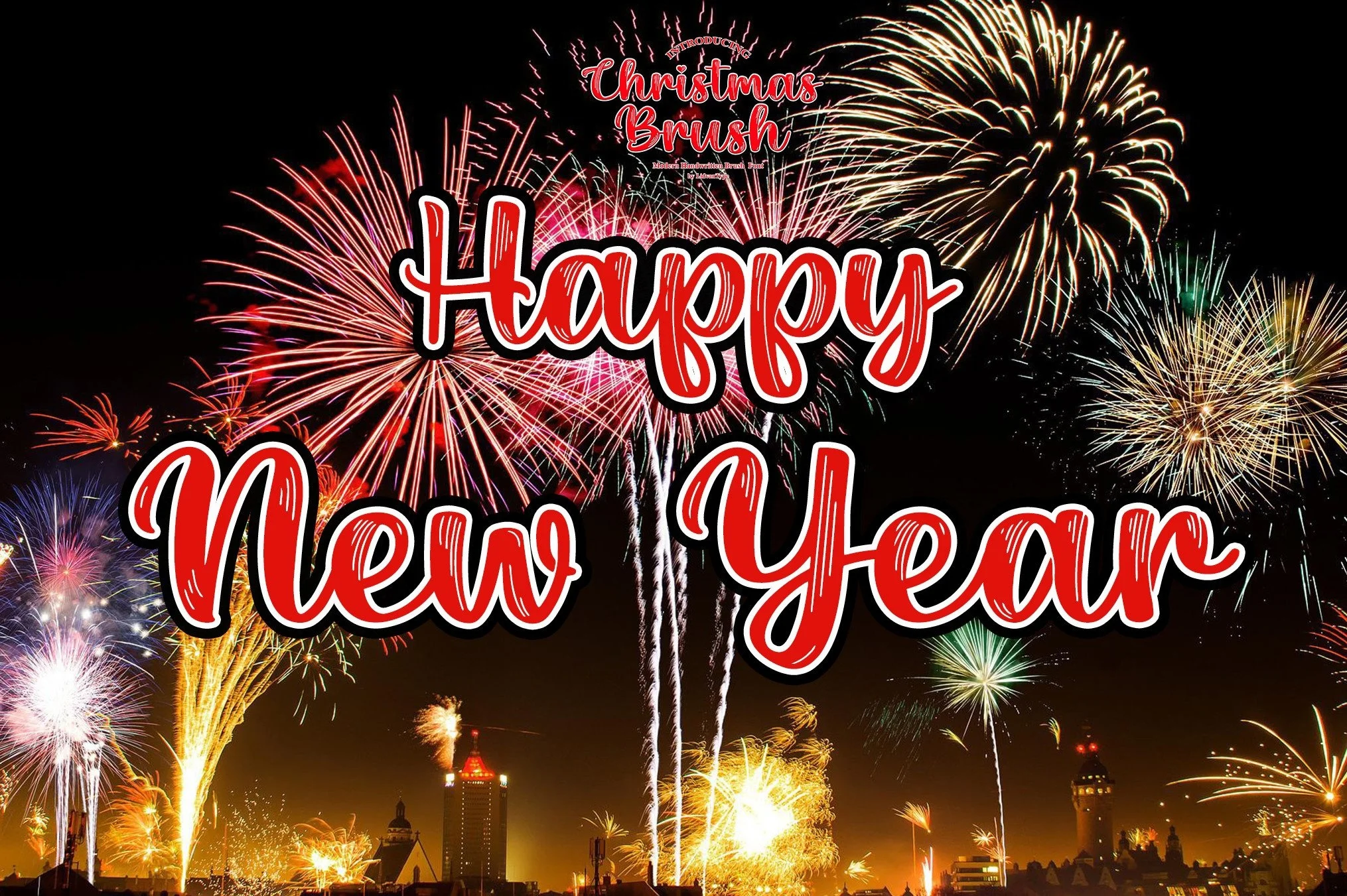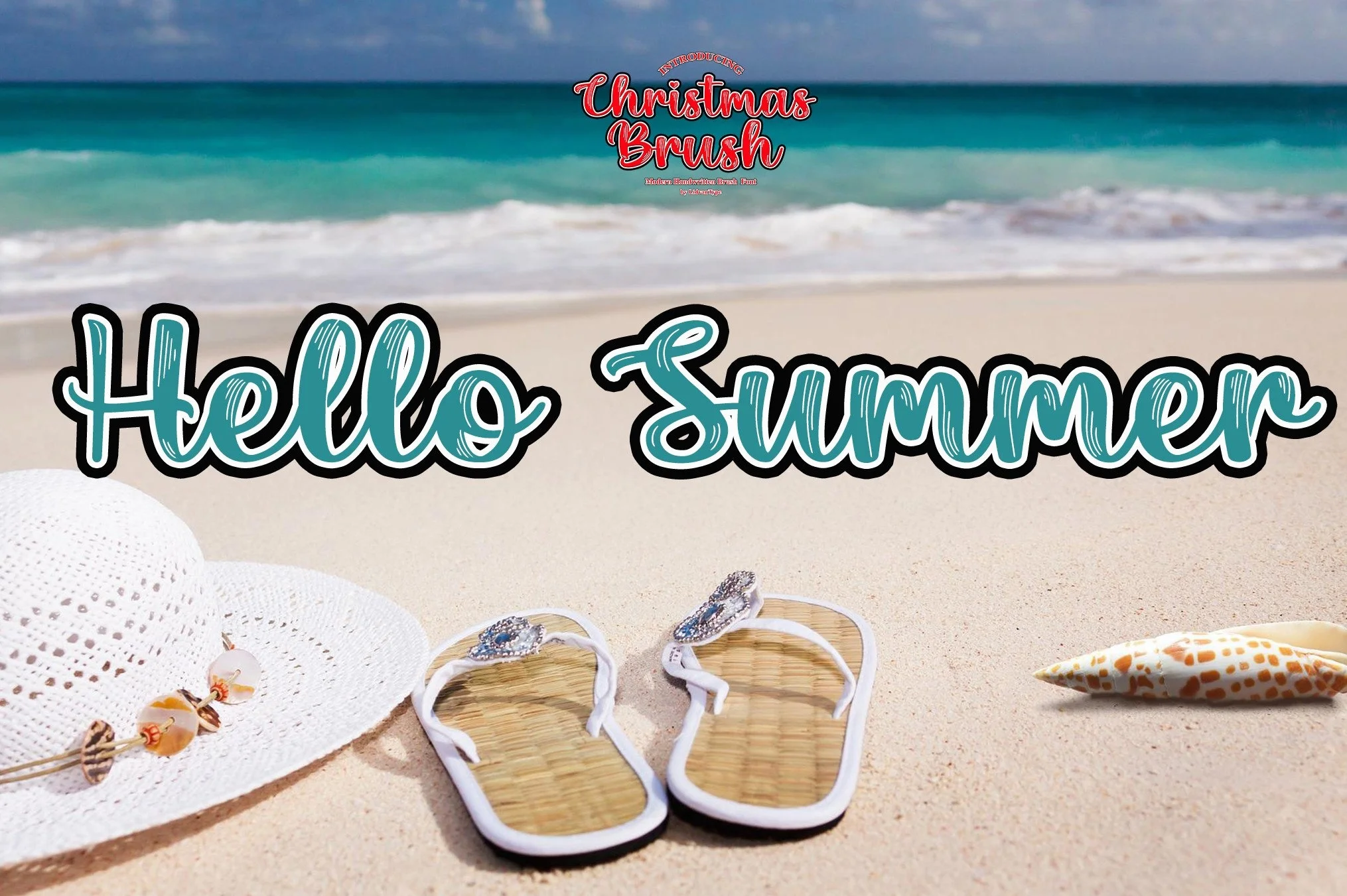
Christmas Brush Font
This artistic font is perfect for painted Christmas signs, hand-painted holiday decorations, artistic Christmas cards, brushed Christmas murals, creative seasonal artwork, artisan Christmas packaging, painted holiday signage, artistic Christmas invitations, craft Christmas projects, and expressive brush-style seasonal messaging.
Christmas Brush Font is exciting because it captures the spontaneous creativity and expressive artistry of brush painting through its dynamically crafted letterforms that mirror the fluid strokes and organic textures of real paintbrush work on canvas. The font features bold, energetic characters with visible brush marks and paint-like variations that evoke the immediate satisfaction and authentic creativity of hand-painted Christmas signs and artistic holiday decorations, incorporating natural bristle textures and paint flow effects that create typography as alive and vibrant as wet paint on a fresh canvas. Each letter showcases the confident spontaneity and artistic freedom that comes from working with brushes and paint, with organic edges and expressive details that capture the way brush strokes carry both intention and happy accidents that make painted artwork so uniquely beautiful and personally authentic.
The Christmas Brush Font family includes paint-inspired variations: Regular, Bold, Light, Thick, and Splatter versions. The collection features special brush elements including paint stroke accents, bristle texture details, drip effects, and artistic flourishes. Additional components include painted borders, brush frames, artistic decorations, and expressive ornamental designs that enhance the font's Christmas brush appeal and create cohesive painted holiday themes.
Artists and creative makers will find Christmas Brush Font to be an invaluable resource for creating authentic painted holiday communications that celebrate the hands-on artistry and creative expression of brush painting traditions. This expressively crafted font transforms ordinary Christmas messaging into painted masterpieces that convey the same artistic satisfaction and creative authenticity as hand-painted holiday artwork created with real brushes and paint.
The typeface includes comprehensive character support with brush painting styling that maintains excellent readability while conveying the expressive energy and artistic authenticity of painted Christmas creations. The font's artistic design ensures striking results across both digital painting applications and actual painted holiday projects.
Perfect for artists, craft makers, painted Christmas celebrations, and creative holiday branding, this font delivers authentic artistic impact that communicates creativity, expression, and the satisfying authenticity of brush-painted Christmas art that brings the joy of hands-on creativity to holiday communications and seasonal artistic expression.